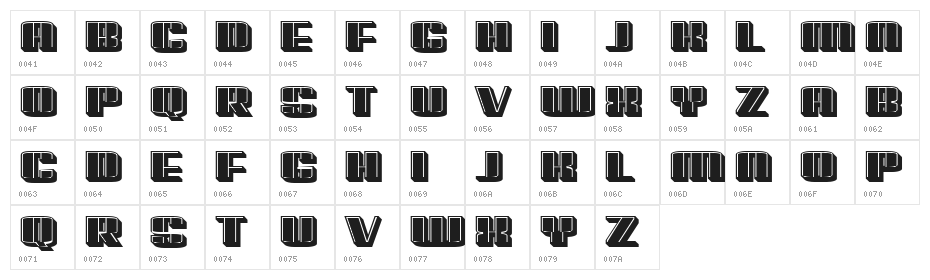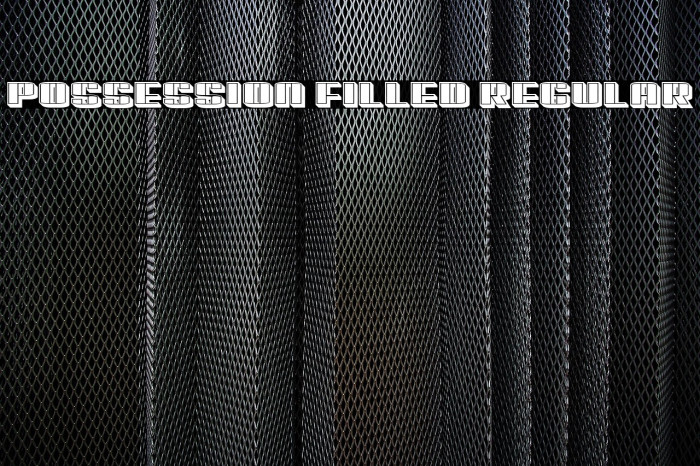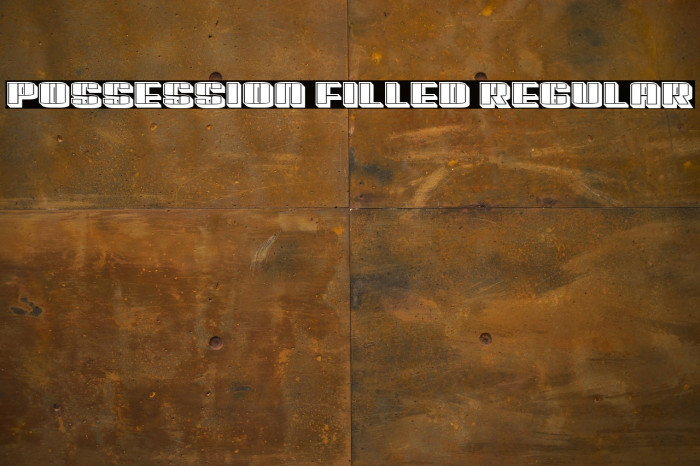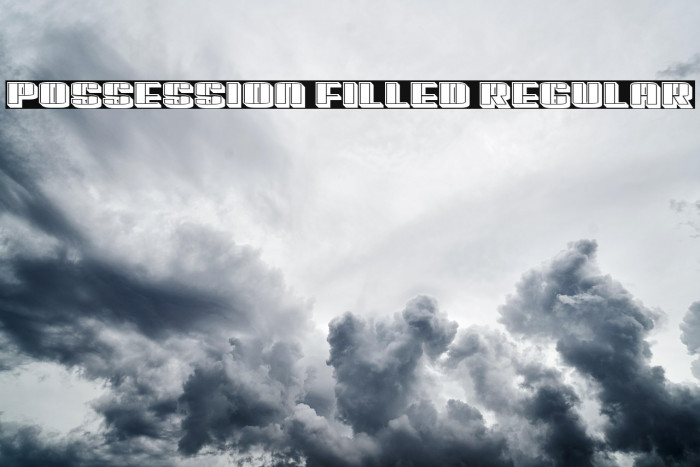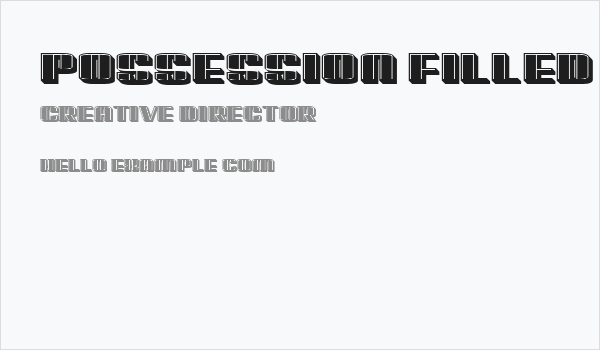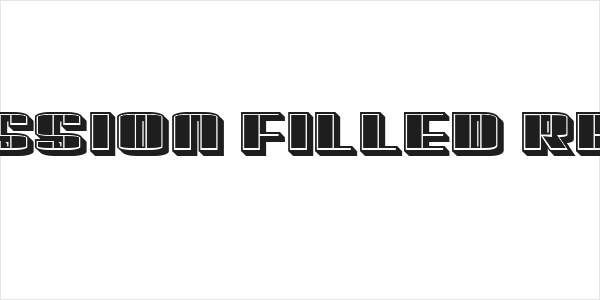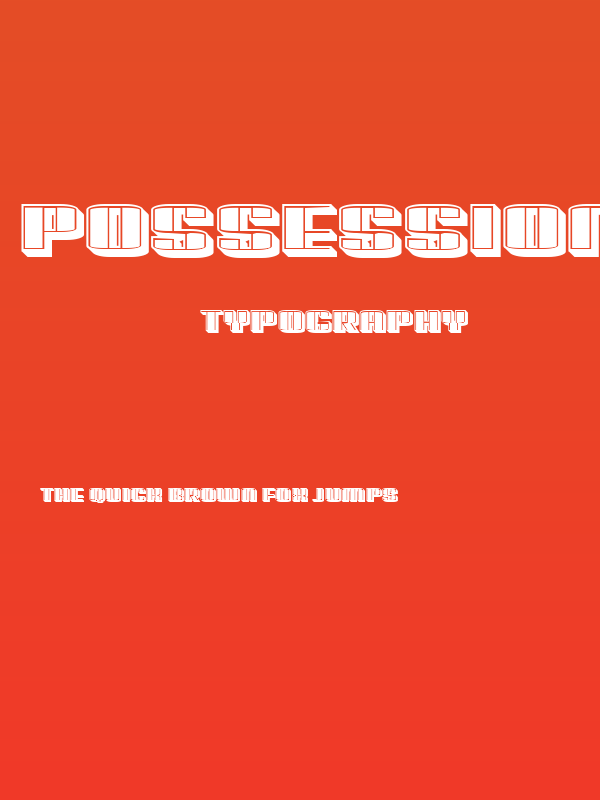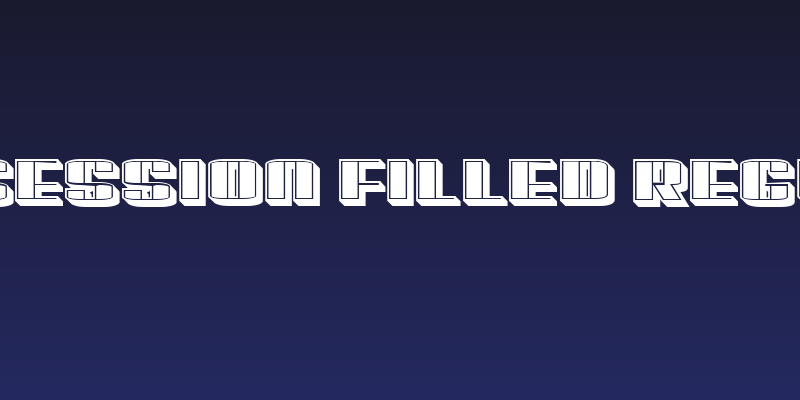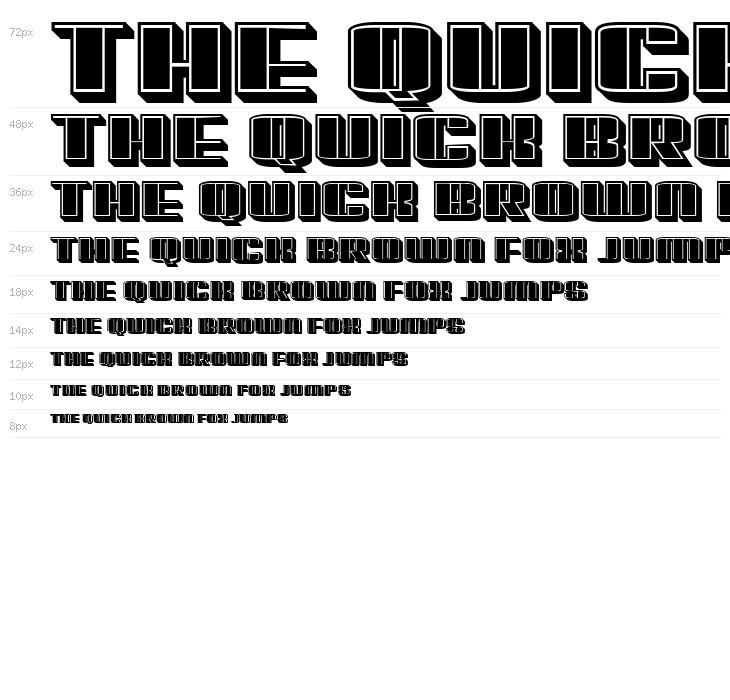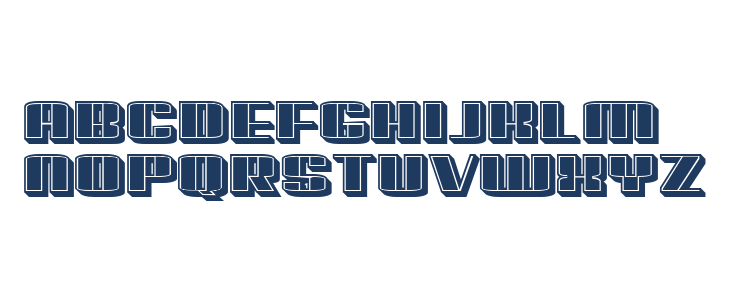
Possession Filled Regular Font
Possession Filled Regular Description
This font features a bold, geometric design with a strong presence. Each character is outlined with a thick border, creating a filled appearance that emphasizes its blocky structure. The uppercase letters are uniform in height, contributing to a cohesive and balanced look. The font's style is reminiscent of industrial or futuristic themes, making it suitable for projects that require a modern and impactful typeface. Its distinct, filled-in appearance ensures high visibility and readability, even from a distance.
| Proposed Projects | This font is perfect for branding, posters, headlines, and any design that requires a strong, modern aesthetic. |